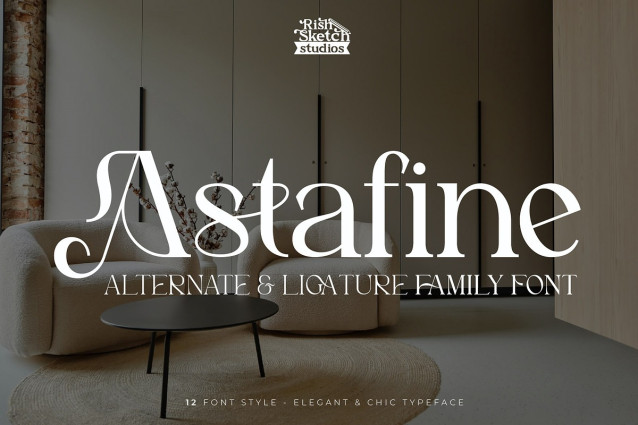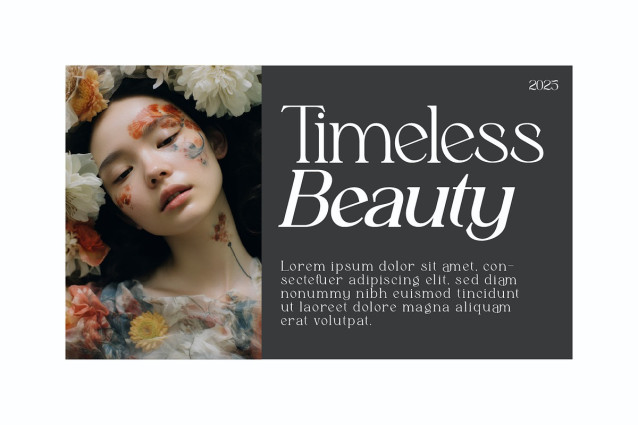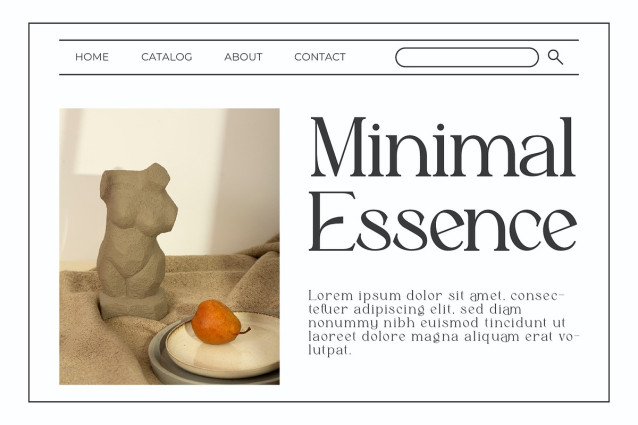
Astafine Font Family
Astafine Font Family – Elegant Serif Typeface Font, from Rishsketch Studios, is a premium Elegant Serif Typeface Font, perfect for any project that requires a distinctive, and premium feel.